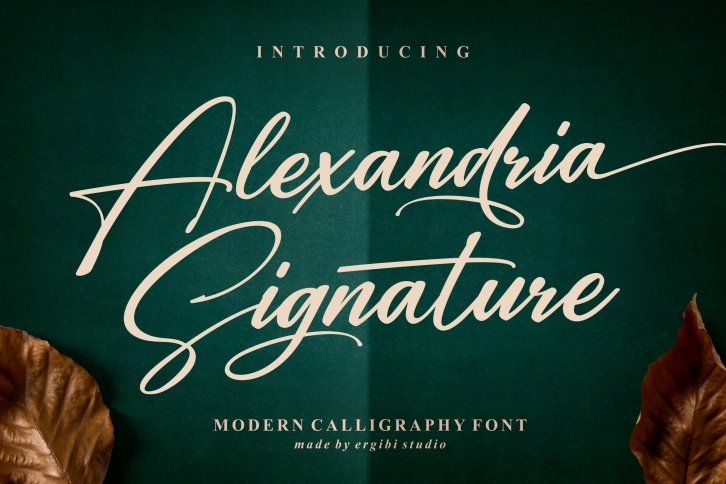
Alexandria Signature is a gorgeous font that was realeased on March 9, 2022. The font can be used in many style contexts and design environments. Perfect for invitations, magazines, websites, logos, and more! It was designed by Awan Senja and the file size is 14.16 MB. Thanks for checking out this font!